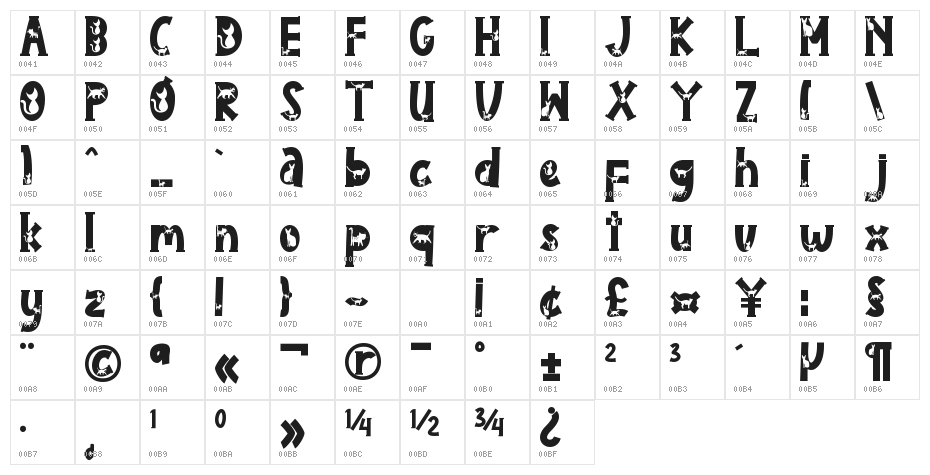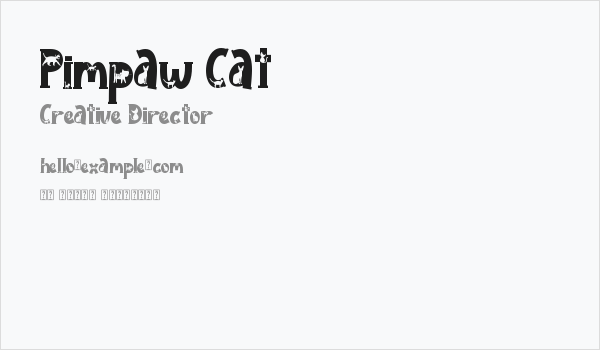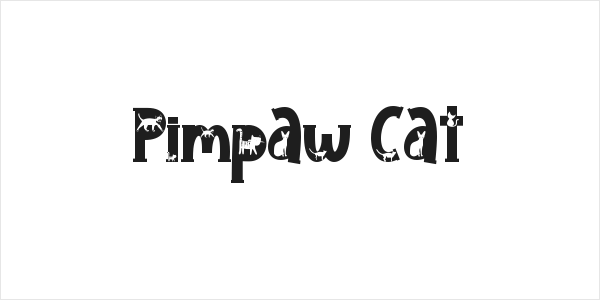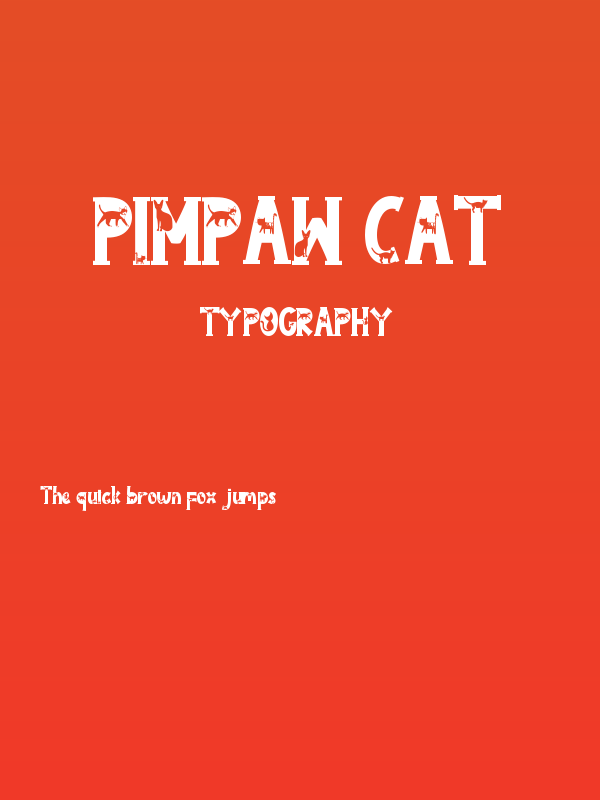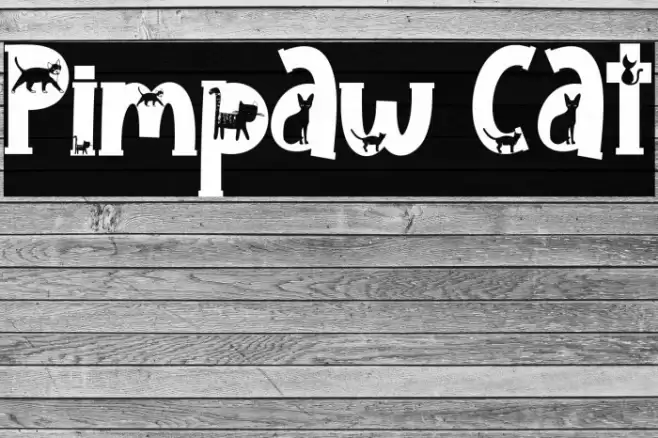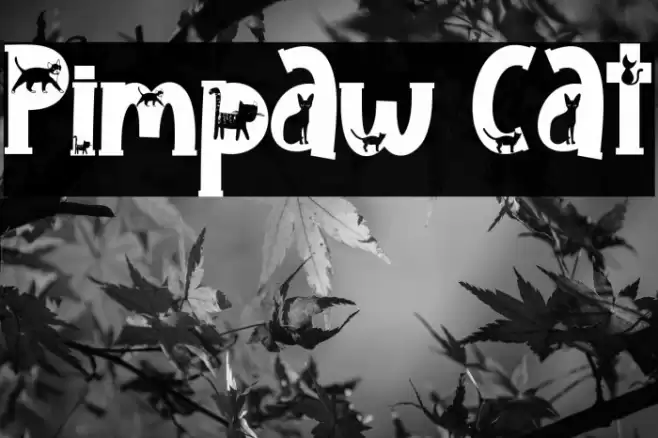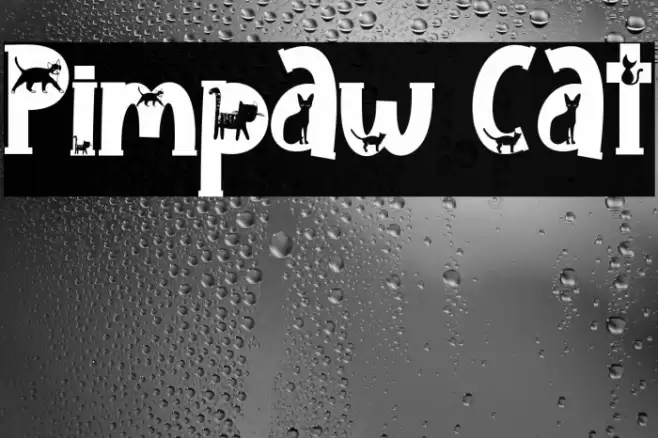
Pimpaw Cat Font
Pimpaw Cat Description
This playful and whimsical font features a unique design where each letter is creatively integrated with cat silhouettes. The characters are bold and decorative, making them stand out with a charming and quirky appeal. The uppercase and lowercase letters maintain a consistent style, with the cat motifs cleverly placed within the strokes of each letter. This font is perfect for projects that require a fun and engaging visual element, such as children's books, pet-related branding, or playful event invitations. The overall style is decorative and modern, with a touch of humor and creativity.
PIMPAW-CAT UPPERCASE
PIMPAW-CAT LOWERCASE
PIMPAW-CAT OTHER CHARS
| Proposed Projects | Ideal for children's books, pet branding, playful invitations, and creative posters. |